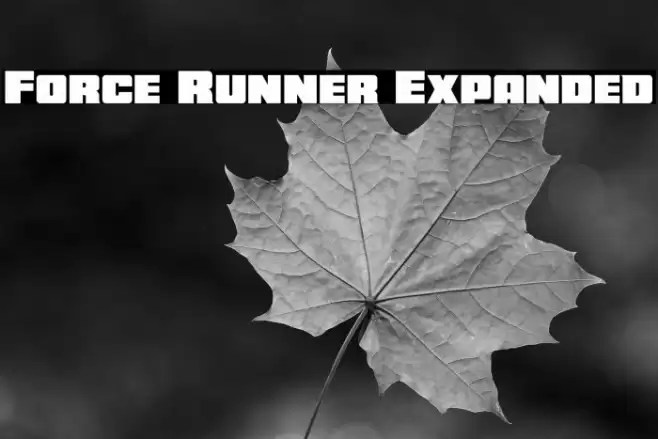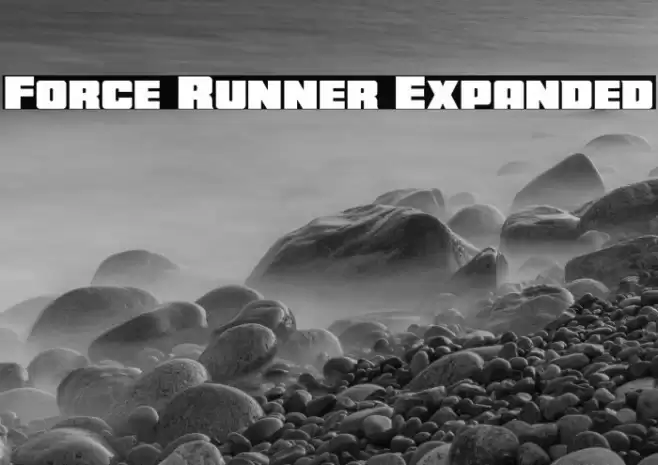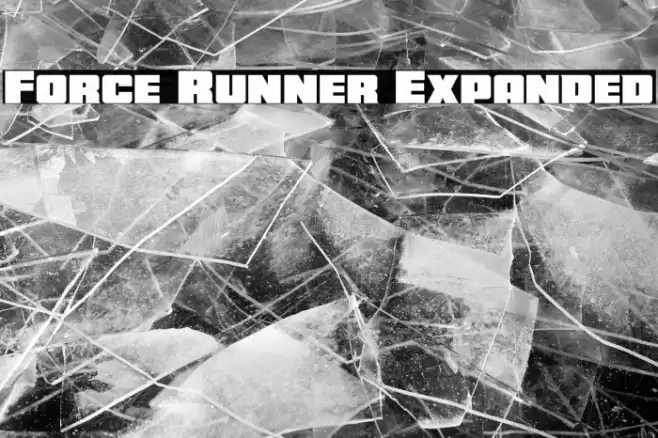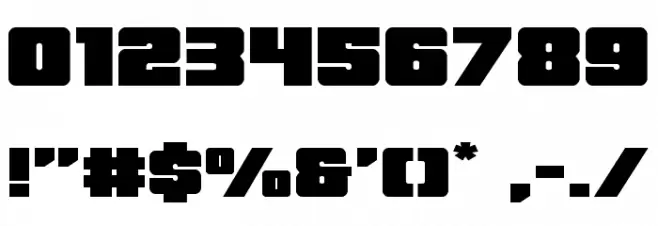
Force Runner Expanded Font
Force Runner Expanded Description
This font features a bold and powerful design with a strong presence, characterized by its thick, blocky letters. The uppercase letters are uniform in height, creating a cohesive and impactful look. The numbers and special characters maintain the same boldness, ensuring consistency across all elements. The font's expanded width gives it a commanding appearance, making it ideal for attention-grabbing headlines or titles. Its geometric shapes and clean lines contribute to a modern and assertive style, suitable for projects that require a strong visual impact.
A bold, expanded font with a strong, modern presence from Uncategorized fonts.
- Proposed Projects: Ideal for sports branding, posters, headlines, and any design requiring a bold statement.